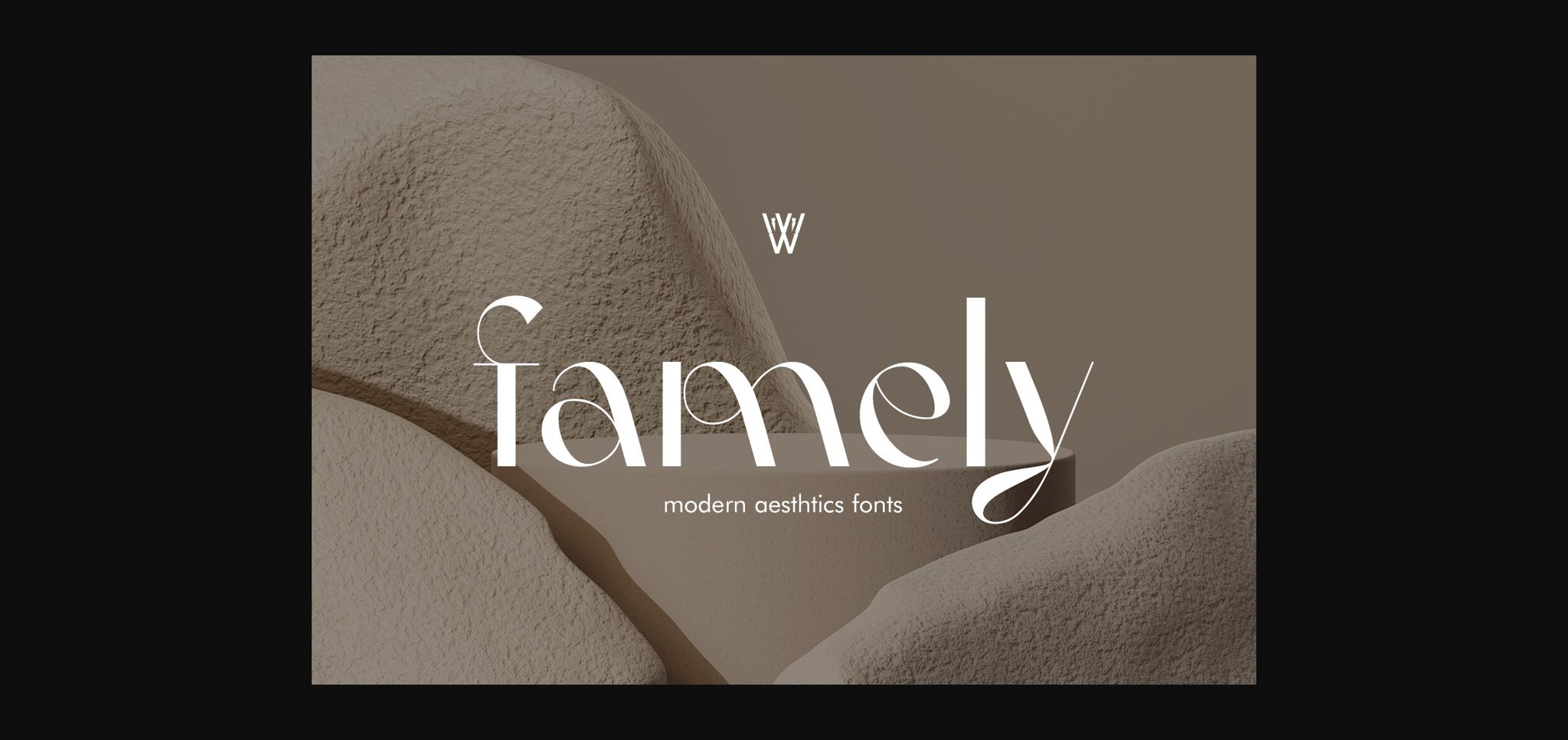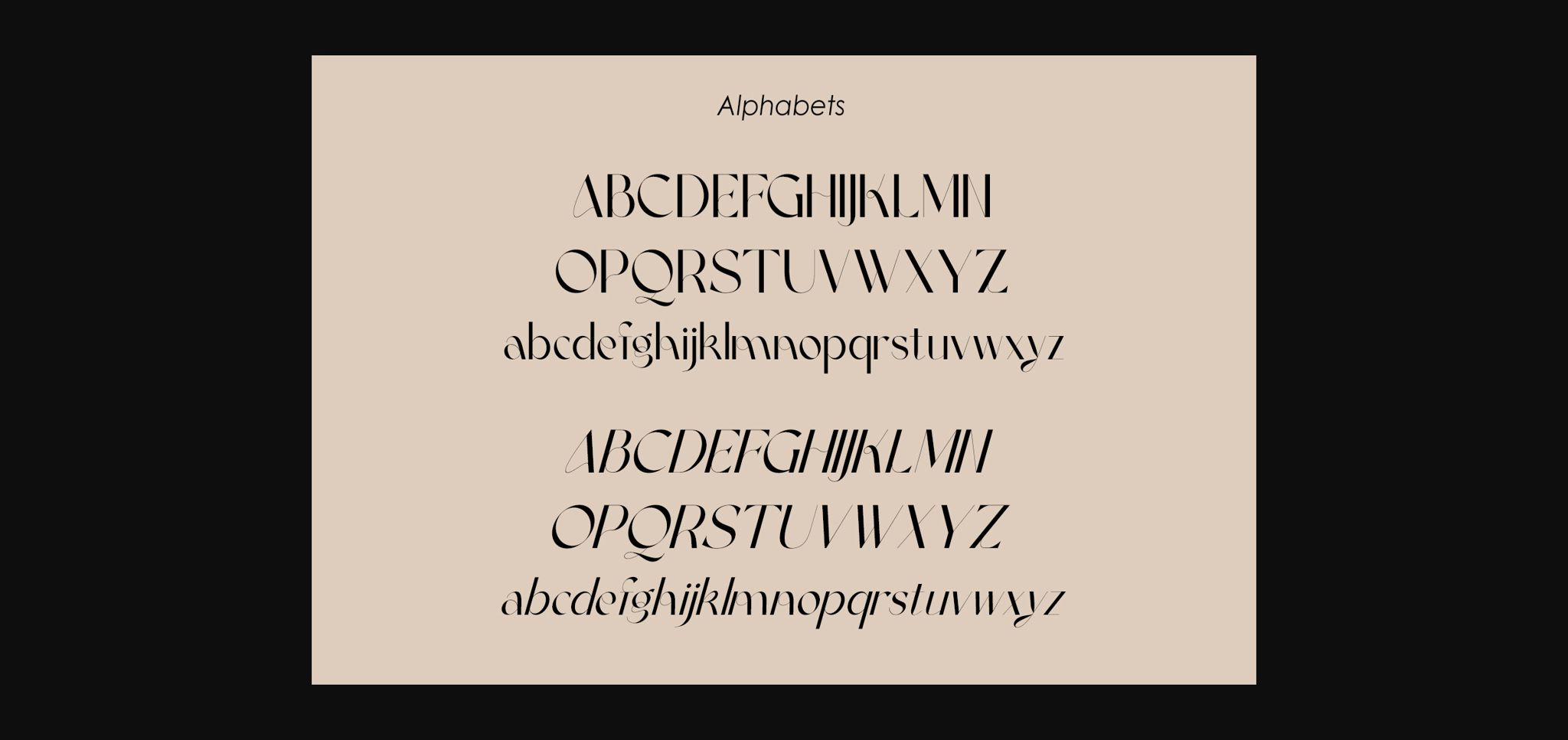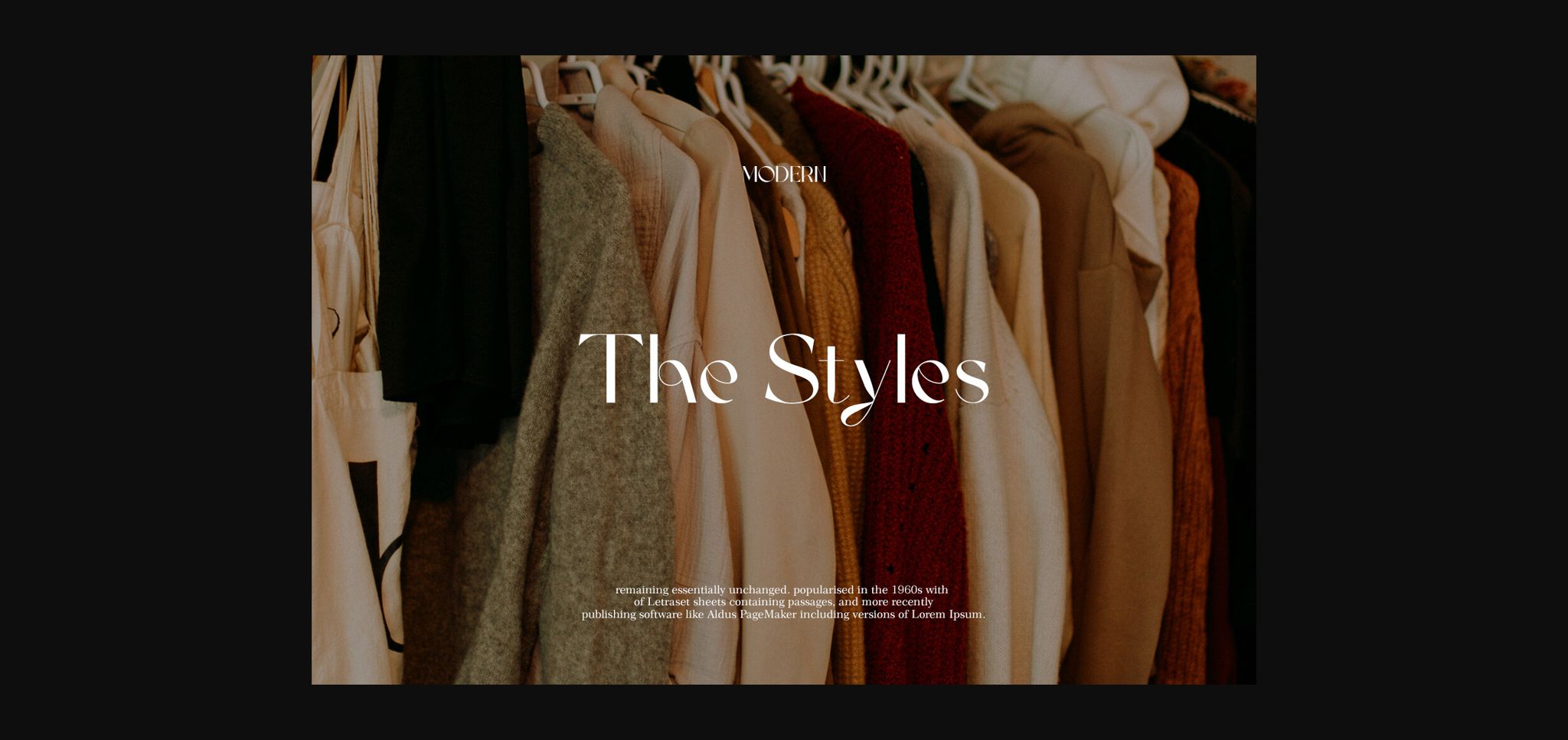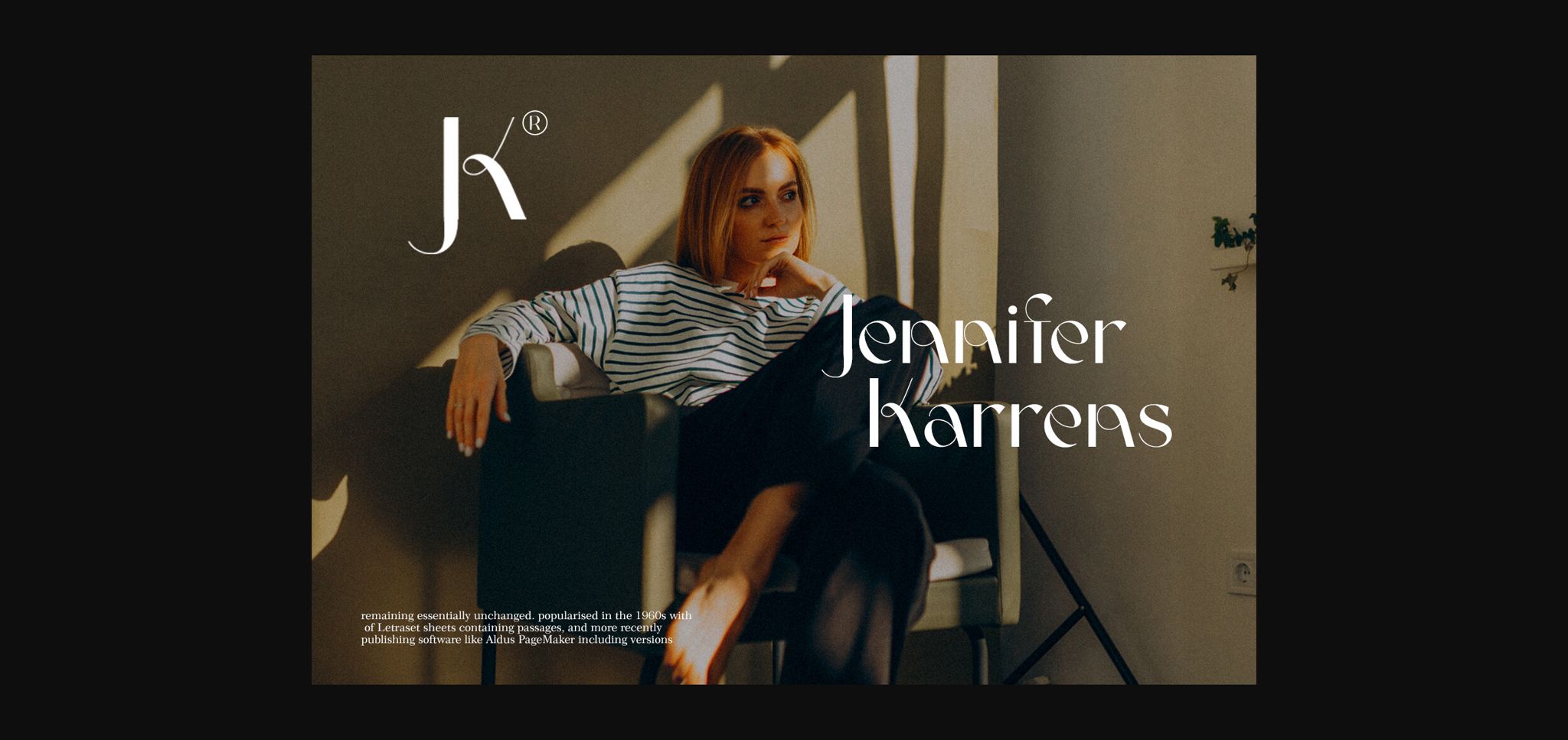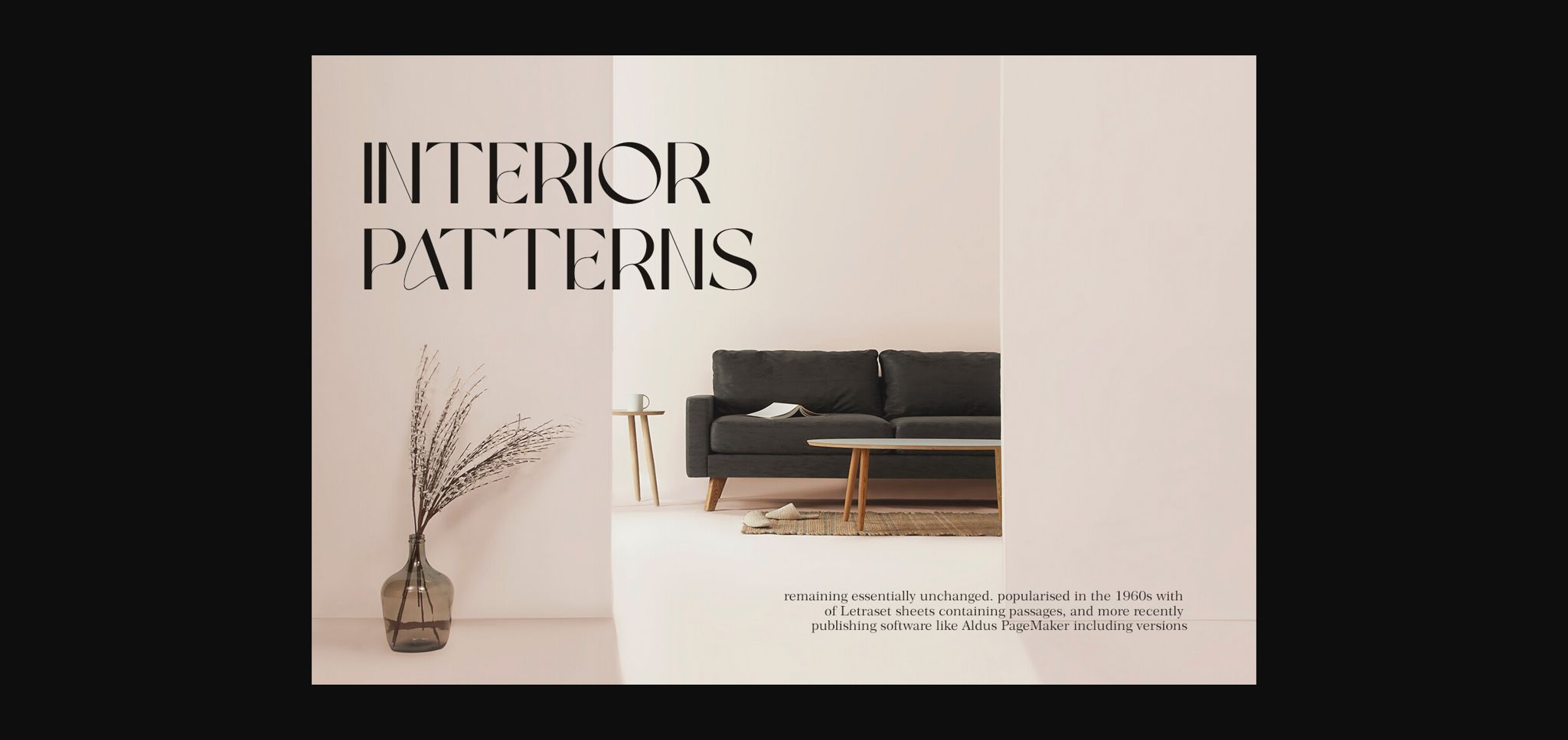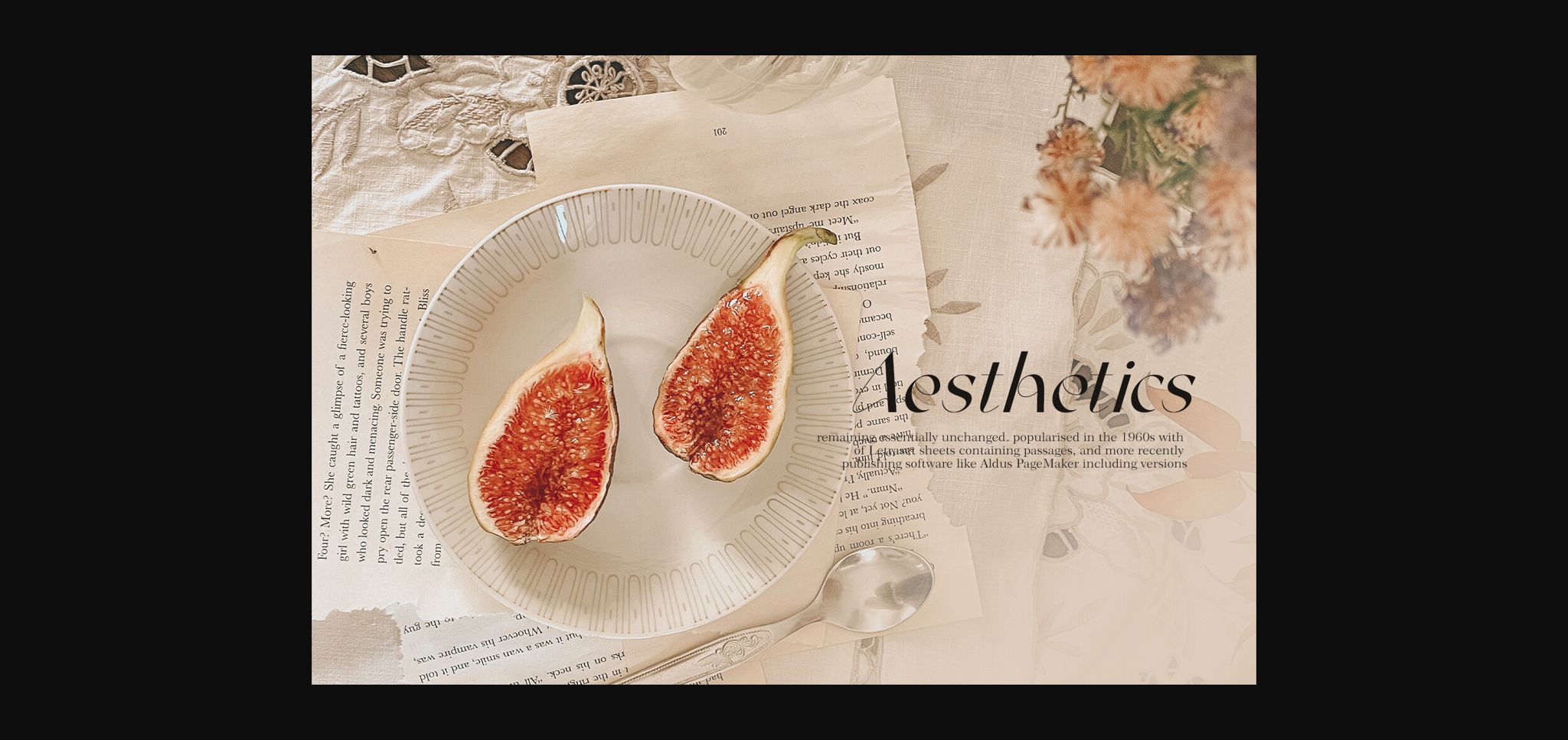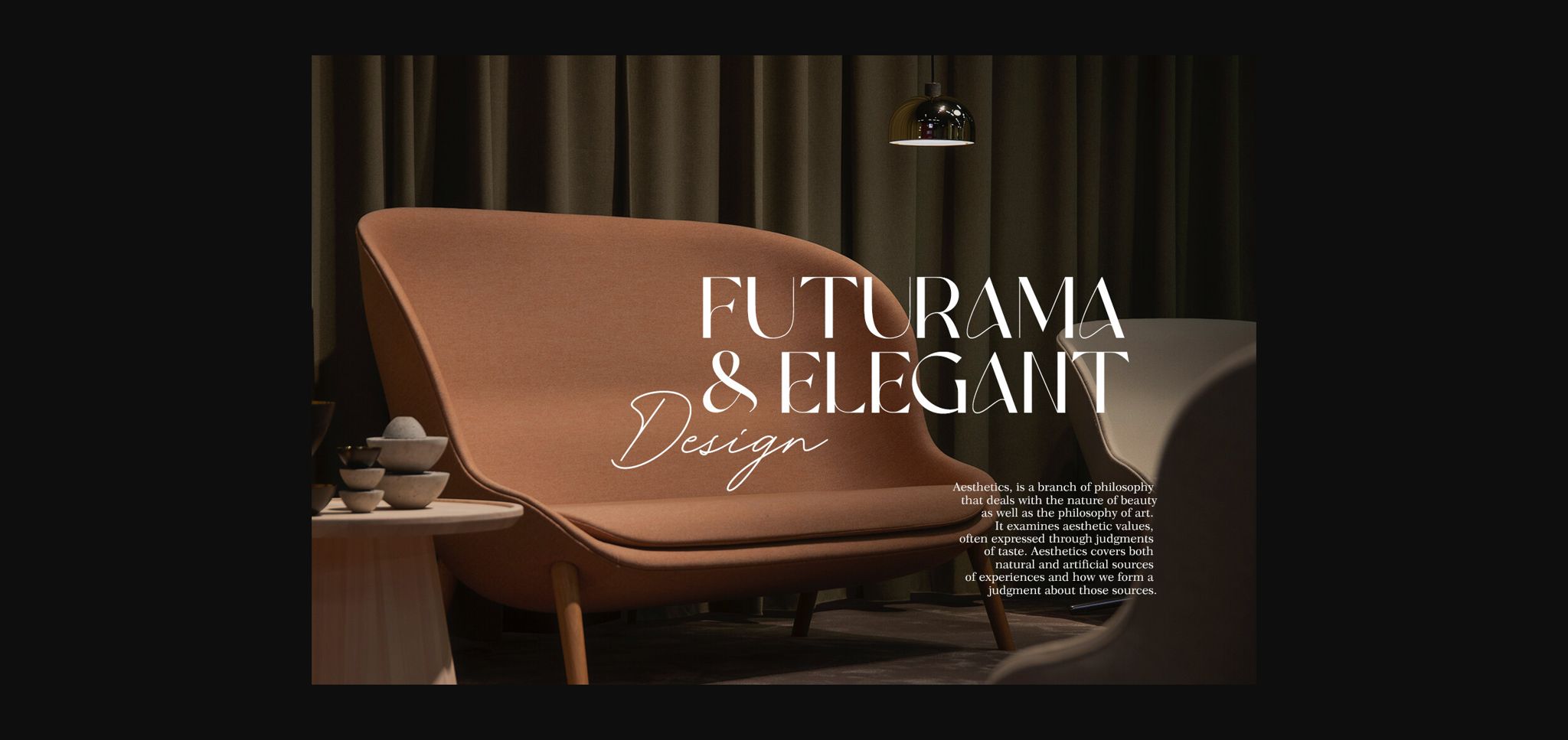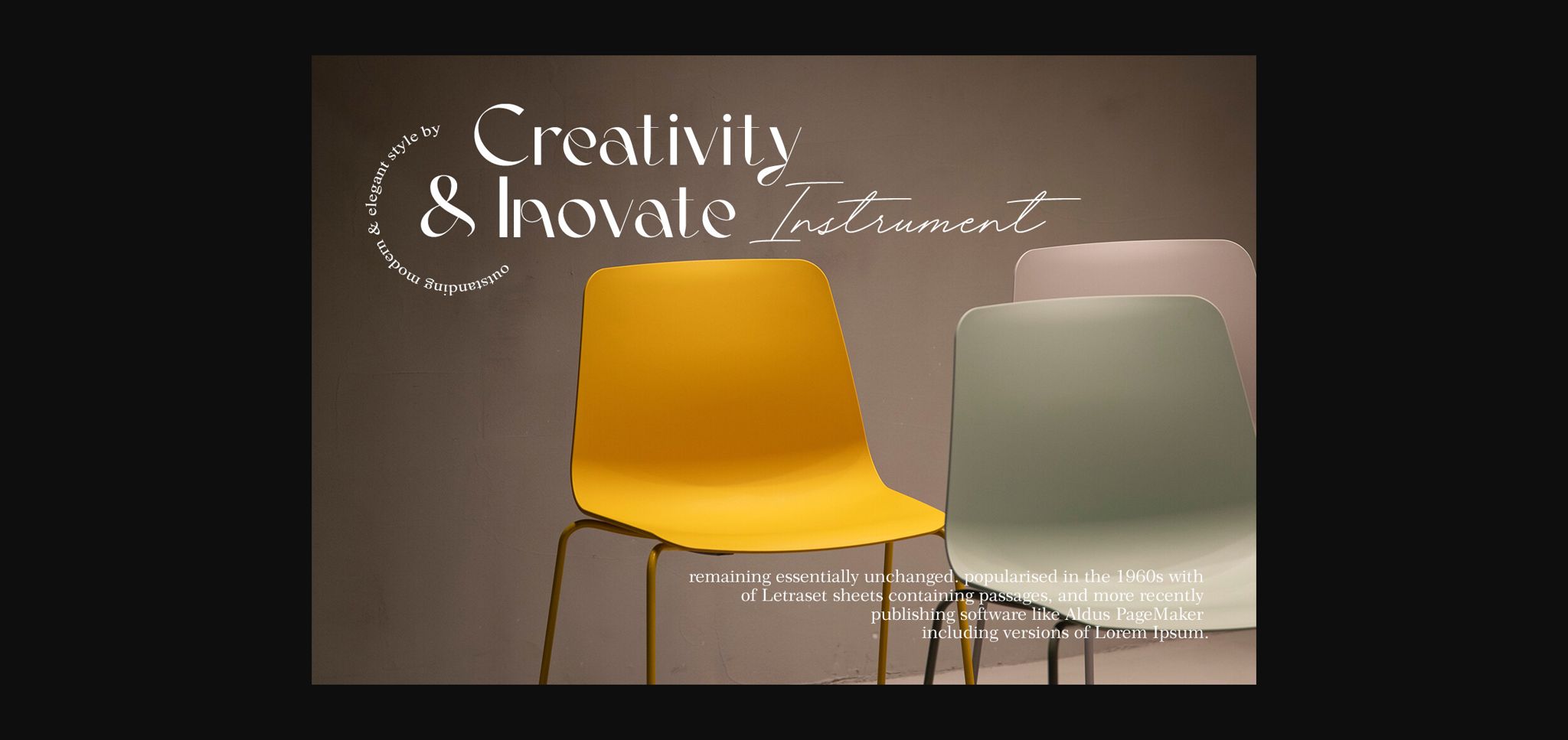
Famely Font
About Famely Font
Famely is a stunning typeface that can showcase beauty but with a minimalistic form. With its graceful curves and smooth serifs, this typeface can evoke a sense of beauty with a class of elegance and glamour. Whether used for branding, invitations, or editorial design, Famely adds a touch of glamour to any project.
Famely font’s versatile nature makes it suitable for both headings and body text, and its legibility ensures clear communication. Amoretta is the perfect choice for those looking for a typeface that embodies timeless beauty and sophistication.